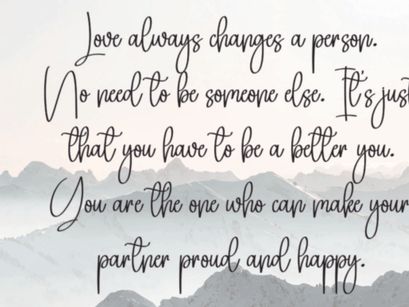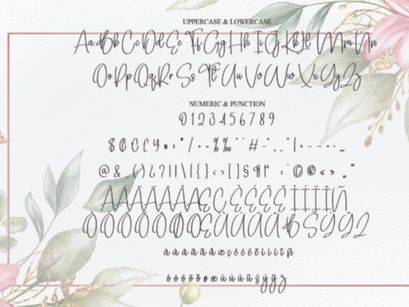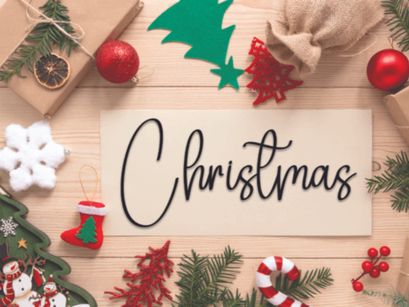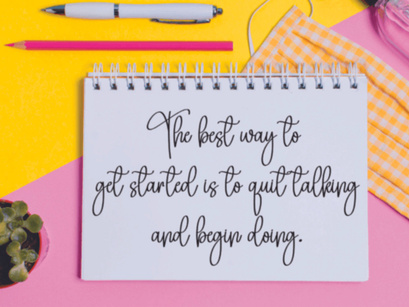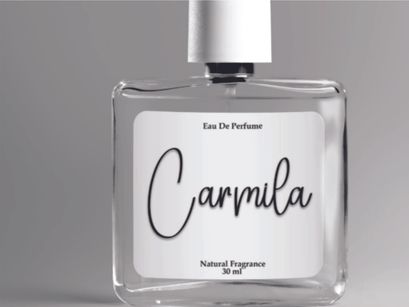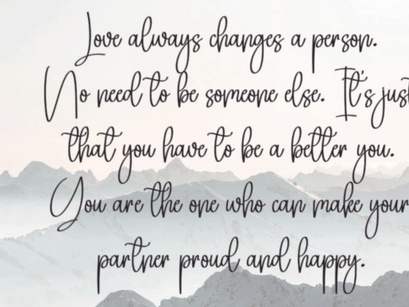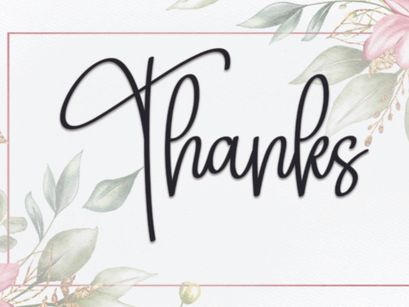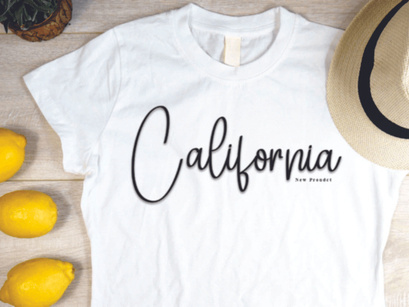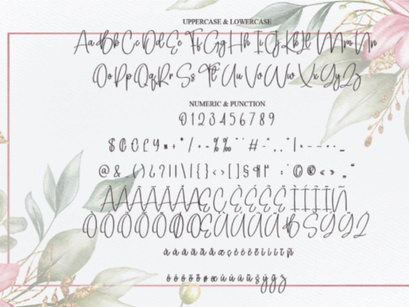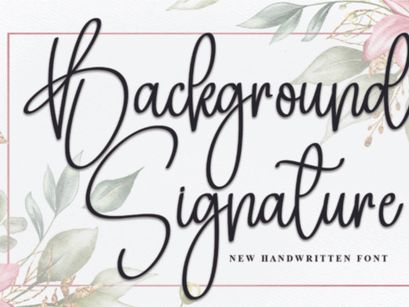
Background Signature is a beautiful handwritten font with a natural, flowing style. It looks like elegant cursive writing, perfect for adding a personal and stylish touch to invitations, logos, and social media posts.